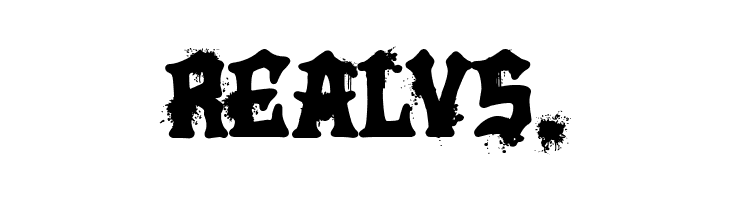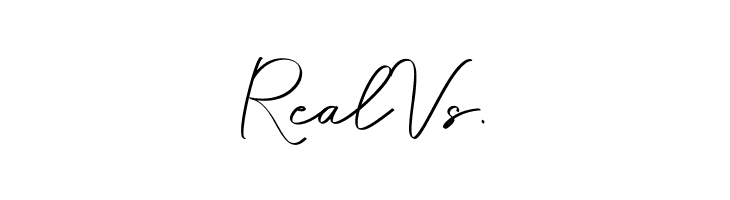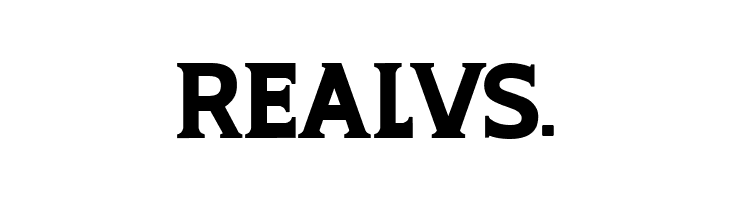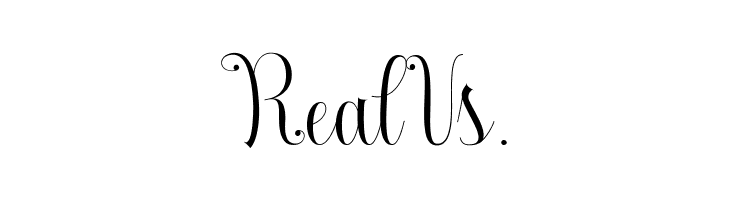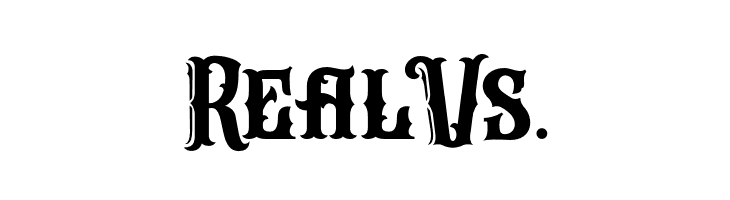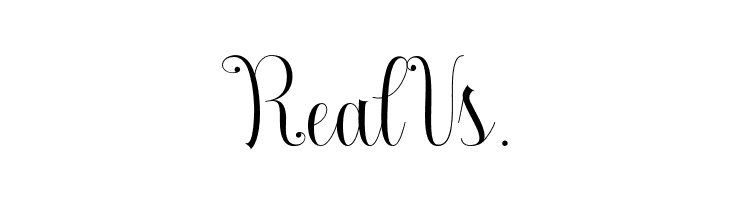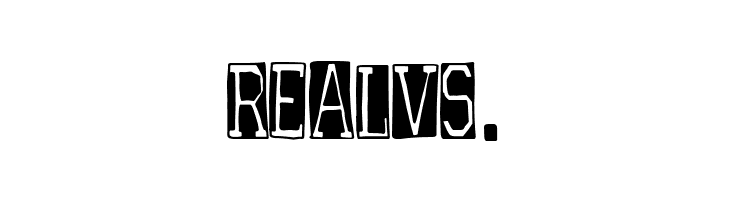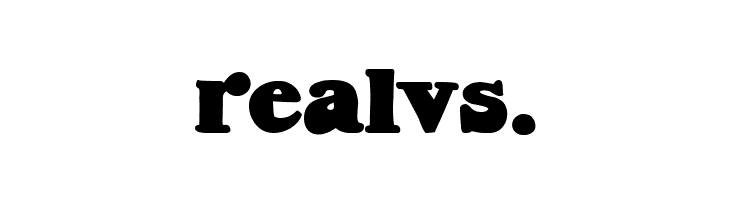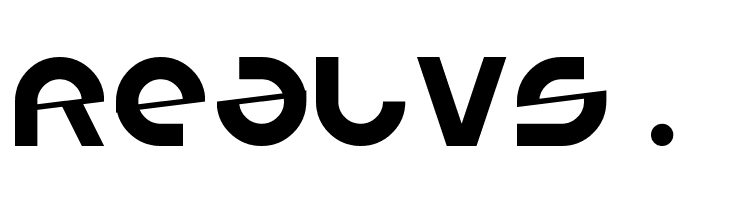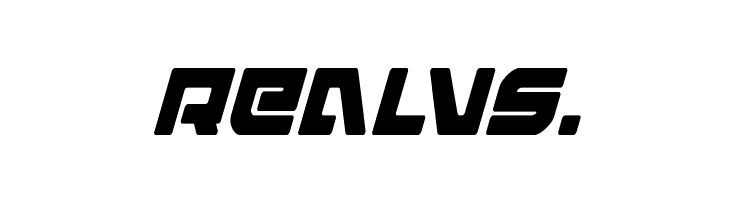
A sophisticated script font with elegant flourishes and high contrast.
A playful and whimsical script font with flowing, interconnected letters.
A bold, decorative font with vintage flair and intricate detailing.
A graceful script font with fluid, handwritten elegance.
A modern, handwritten font with fluid, cursive strokes and elegant connections.
A bold, distressed font with a gritty, urban style and splatter-like details.
A bold, futuristic font with geometric shapes and dynamic curves.
An elegant and decorative script font with playful swirls and loops.
An elegant, decorative script font with intricate swirls and loops.
Hand-drawn, bold display font with a stamped, irregular look.
A bold, classic serif font with strong, well-defined letterforms.
A bold, rounded slab serif display font with playful, exaggerated forms.
A modern, angular serif font with a futuristic and bold design.
A modern, italic font with sleek, elongated characters and a dynamic style.
A bold, stencil-style font with a rugged, military-inspired look.
A bold, geometric, and condensed font with a futuristic industrial style.
A bold, dynamic, and futuristic italic font with a condensed style.
A modern, playful font with rounded, tubular forms and consistent stroke widths.
A graceful, handwritten script font with fluid, connected letters.
A playful and elegant script font with flowing, interconnected letterforms.
A bold, decorative font with vintage circus-inspired detailing.
A dynamic script font with fluid, connected strokes and a hand-drawn feel.
A bold, playful font with rounded strokes and a whimsical touch.
A bold, decorative font with a layered, dimensional effect.
A bold, cursive font with flowing, interconnected strokes and high contrast.
A tall, narrow, and angular font with a modern, geometric style.
A bold, geometric font with an industrial, robust aesthetic.
A bold, geometric font with a strong and angular design.
A bold, italicized font with a strong, angular, and futuristic design.
A bold, italicized font with angular, modern design.
A bold, angular font with sharp edges and a modern, geometric style.
A bold, geometric font with sharp, angular characters.
A bold, modern font with geometric precision and strong visual impact.
A dynamic handwritten font with fluid, sweeping strokes and a casual elegance.
A bold, angular italic font with a dynamic and modern style.